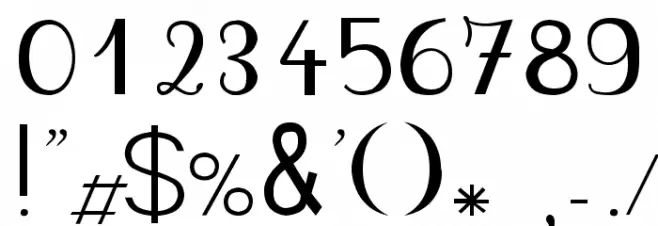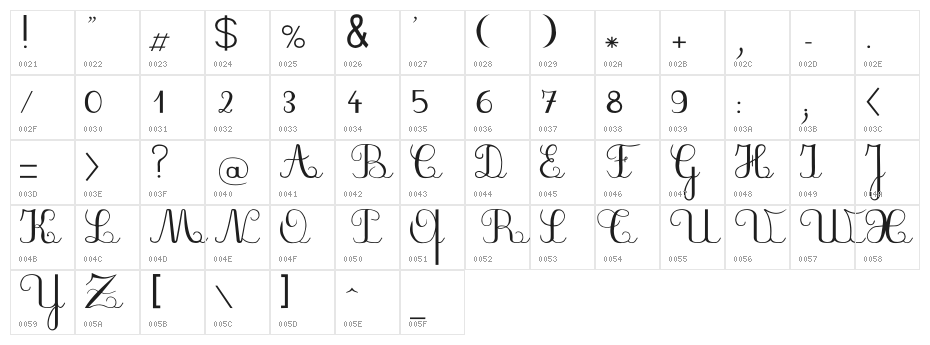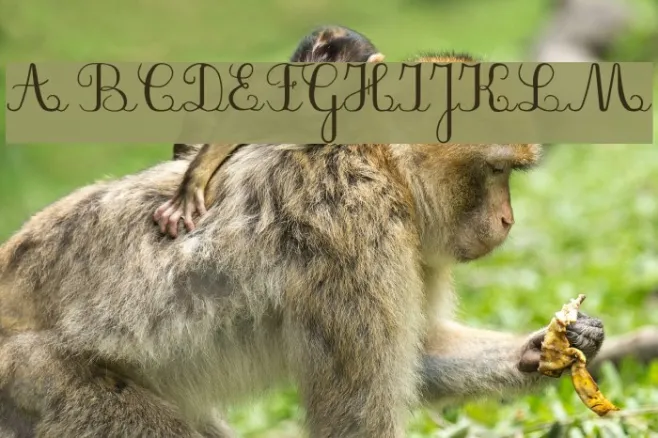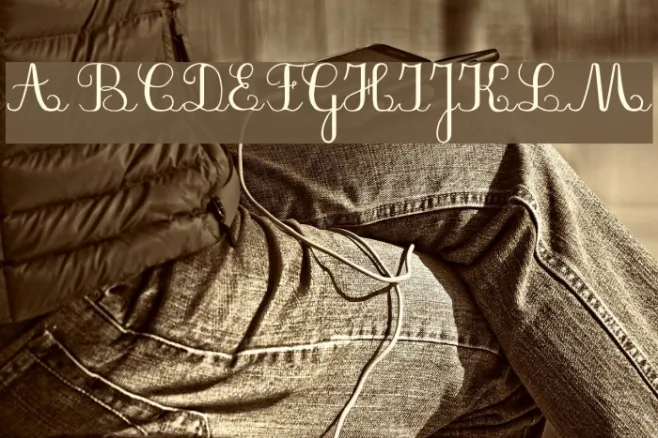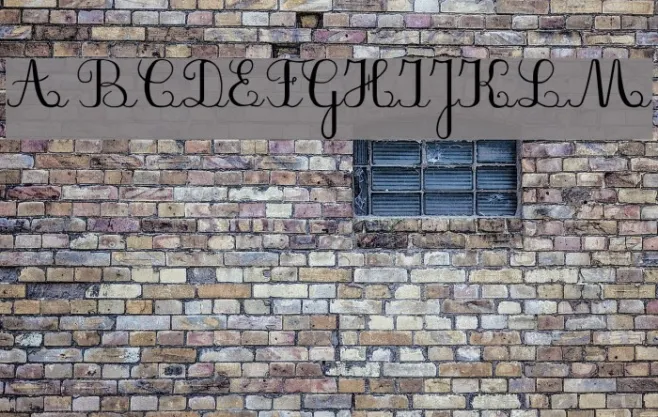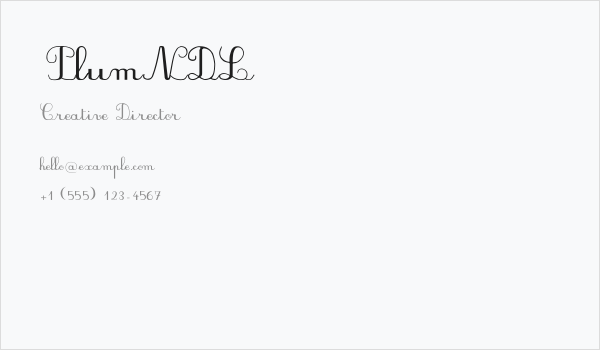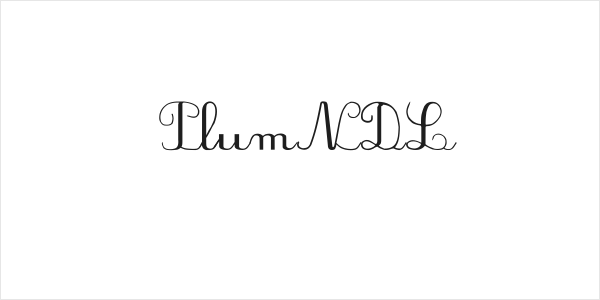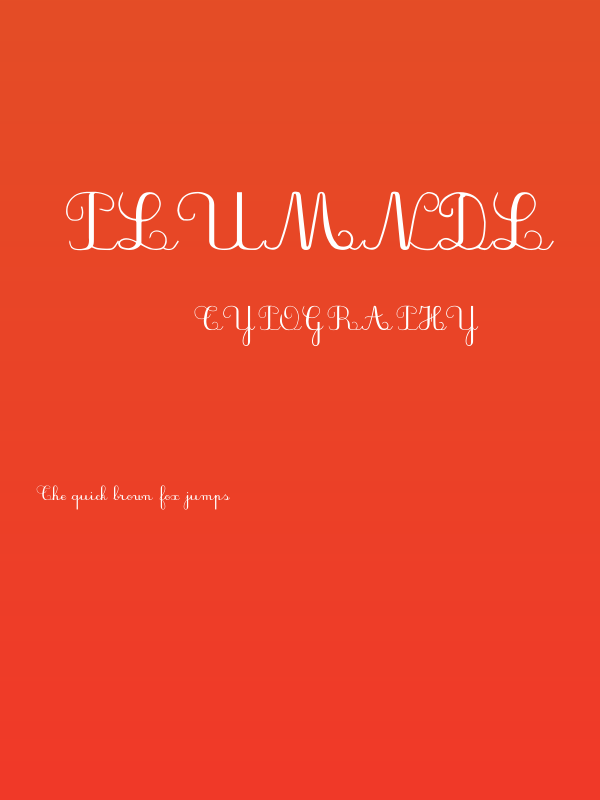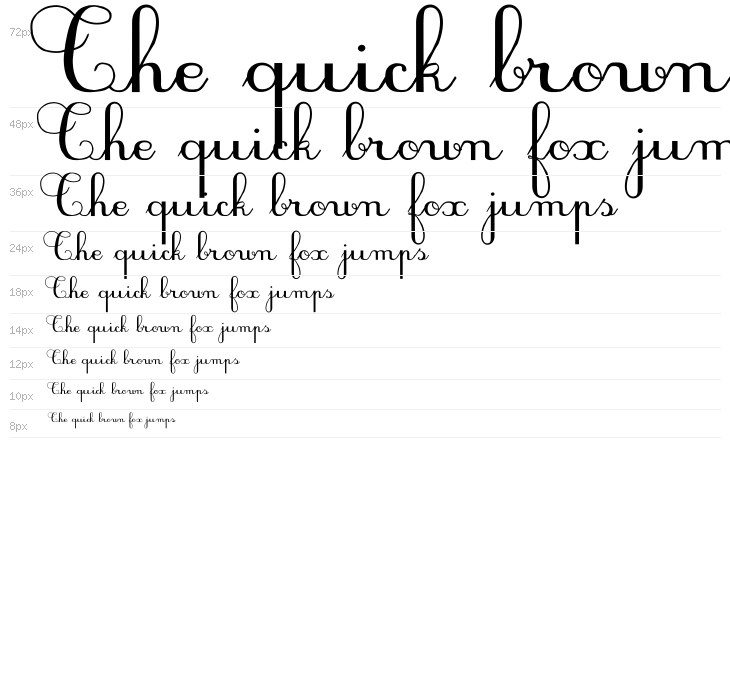
PlumNDL Font
PlumNDL Description
This elegant script font features a sophisticated and flowing design, characterized by its intricate swirls and loops. The uppercase letters are particularly ornate, with extended flourishes that give a sense of movement and grace. The lowercase letters maintain a consistent style, offering a harmonious blend of curves and lines. Numbers and special characters are designed with the same attention to detail, ensuring a cohesive look across all text elements. The font's delicate strokes and high contrast between thick and thin lines make it ideal for decorative purposes.